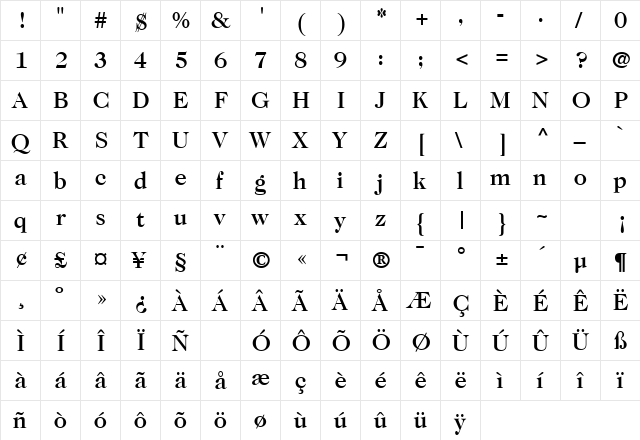
Caslon Two Medium SSi Medium
Design Context for Caslon Two Medium SSi Typeface
Caslon Two Medium SSi is a composed and adaptable typeface that performs quietly and consistently across a wide range of design contexts.